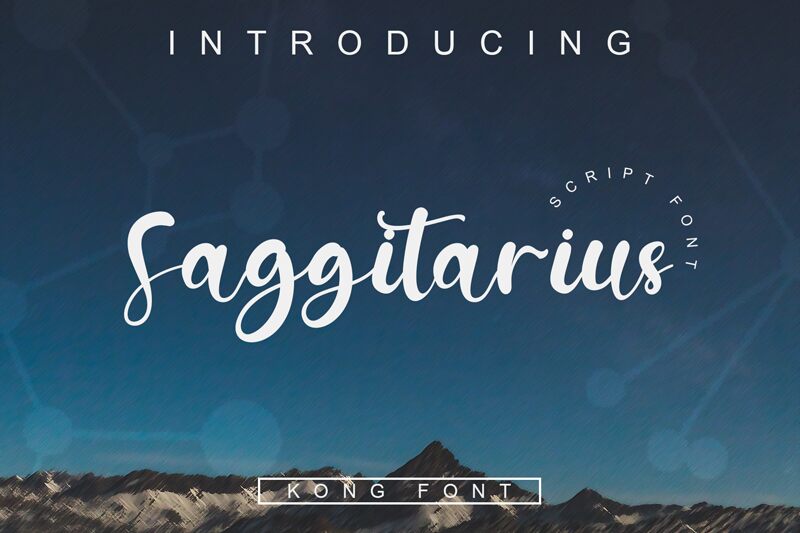
Saggitarius font family by Kong Font comes with 4 font styles. It is a dynamic and unique handwritten script font created with remarkable originality. Inspired by the Stroke made with Brush Pen, Saggitarius has an elegant and modern character set with each letter having its own dazzling characteristic. This informal and flowy font is both approachable and stylish at the same time.
With its modern and expressive appearance, this free font can create creative and charming typography. The contemporary style elements of Saggitarius make it suitable for both digital and print media. Use it in branding where it can be a logotype, a tagline, or a brand name. Adding wonderful texture mixed with fashion in typography is Saggitarius’s strong point.